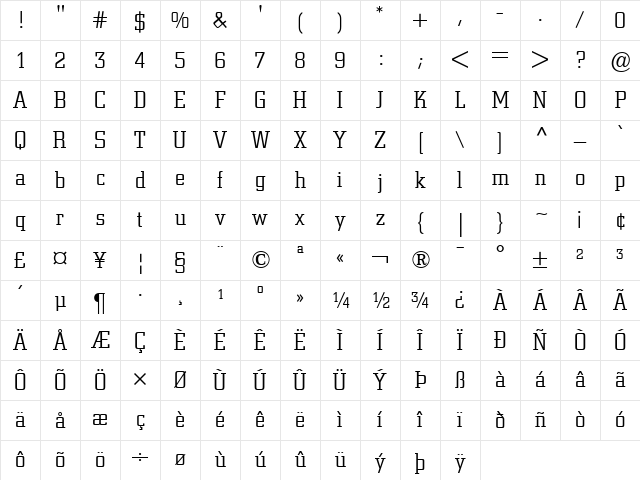
Berthold City Light Free Font
Berthold City Light
Design Context for Berthold City
Berthold City is a composed and adaptable typeface that performs quietly and consistently across a wide range of design contexts. Its slender proportions lend an understated elegance to any composition.
Pro Tip: Use Berthold City in both headline and body roles to test its range before committing to a single application.